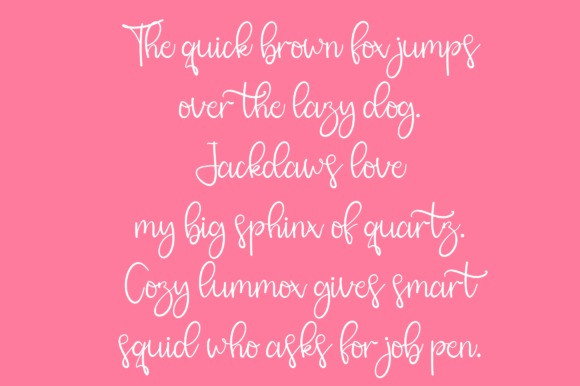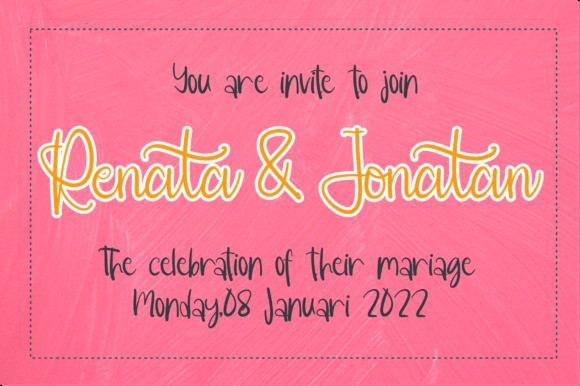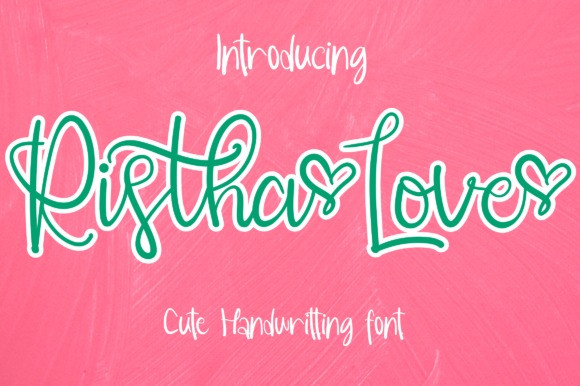
Ristha Love Font
Ristha Love Script Font is a unique and elegant handwritten font. It looks beautiful on a variety of designs requiring a personalized style. This font is PUA encoded which means you can access all of the glyphs and swashes with ease!